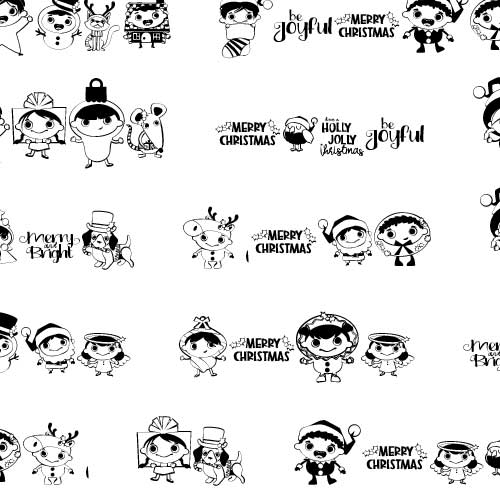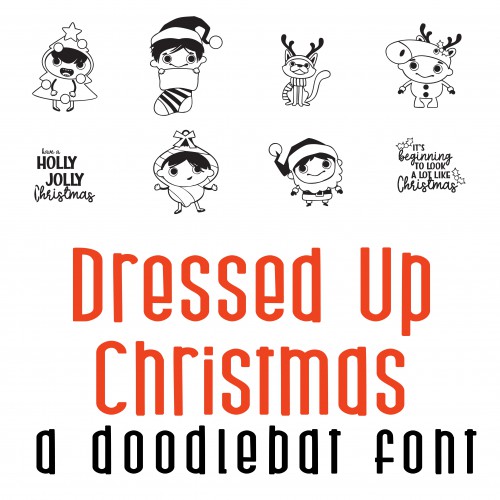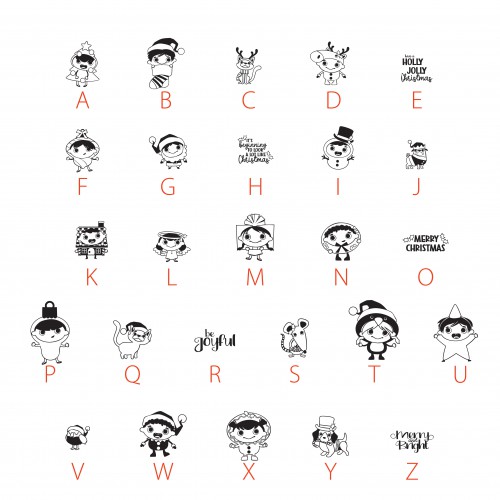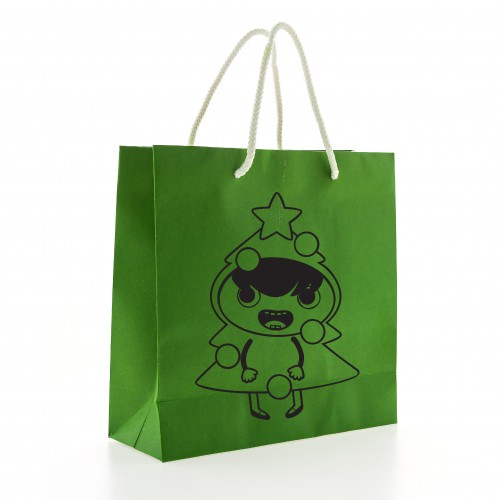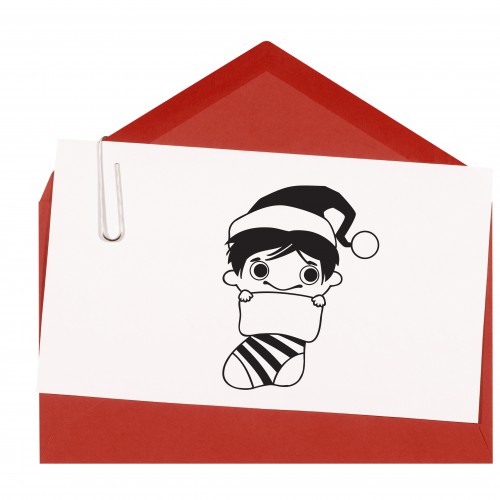
DB Dressed Up Christmas - DB
This adorable doodlebat font features 26 kids and animals dressed for Christmas. Perfect for cards, crafts, gifts, decor, planner stickers, scrap book pages, classrooms and more!